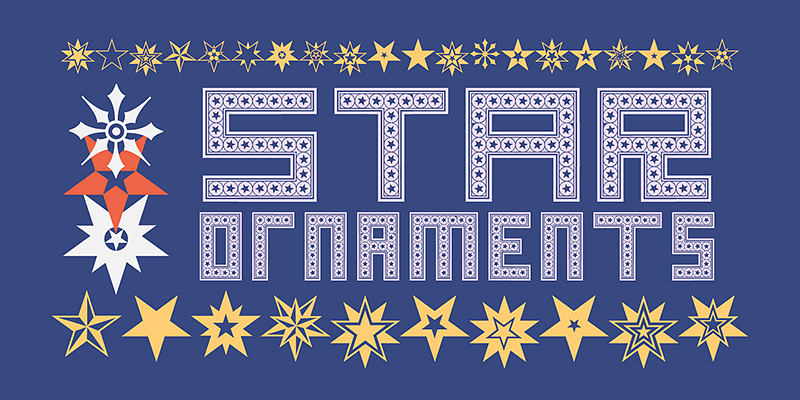
HWT Star Ornaments are seen as a long standing companion to many wood type poster layouts. This digital font features almost 100 glyphs of mostly stars, but it also features a unique star border.
Hamilton Wood Type Collection, established in 2012, is a joint venture between P22 Type Foundry and the Hamilton Wood Type & Printing Museum. The founding goal was to safeguard a typographic era and make classic wood type designs available as digital fonts for modern audiences. This historical collection of serif revivals, sans reinterpretations, decorative embellishments, script reclamations, and original chromatic designs is stunningly relevant and usable for any imaginative design practice.